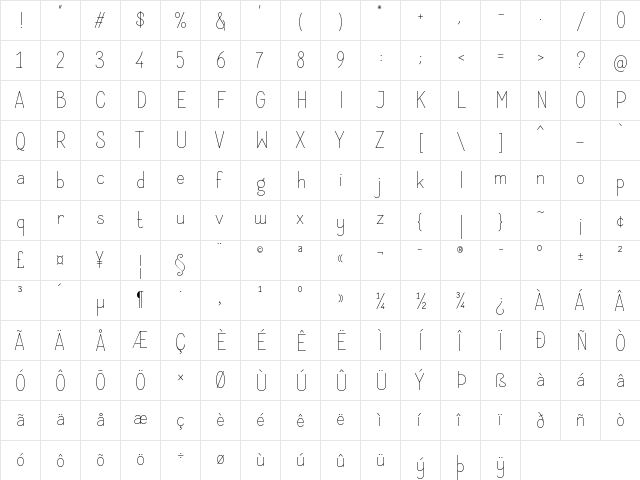
Instine Sans Regular
| Foundry | Darwinoo |
| Designer | Darwinoo |
Design Context for Instine Sans Typeface
Instine Sans takes a measured approach to typography — its balanced proportions and neutral character make it a reliable workhorse for both digital and print work.